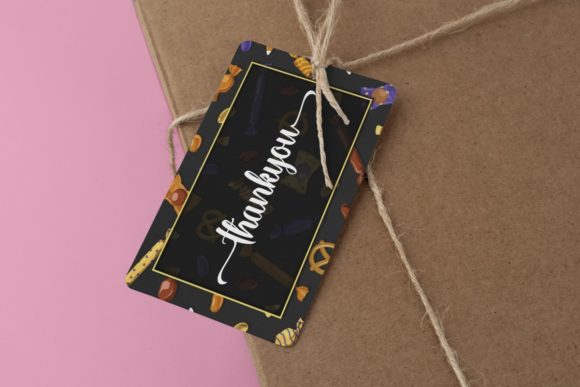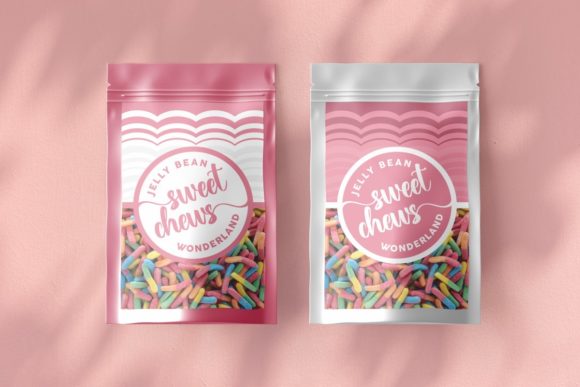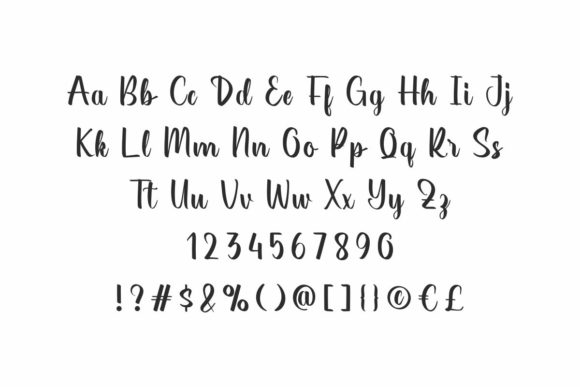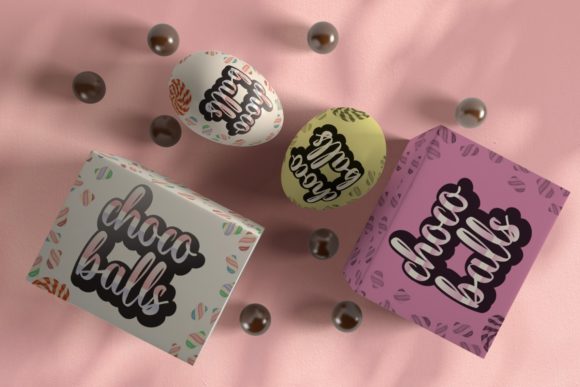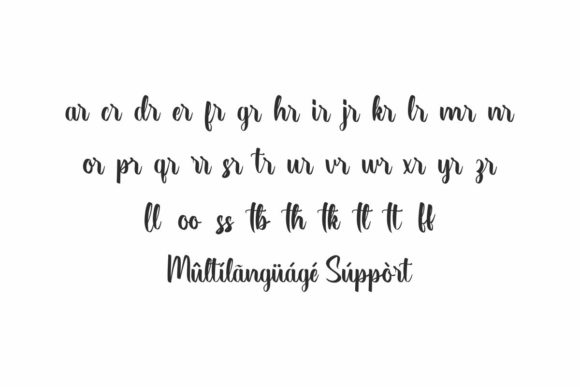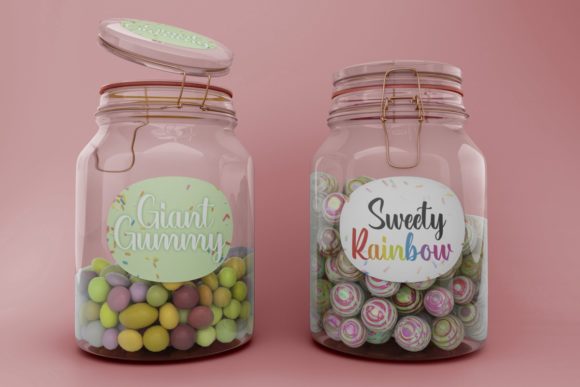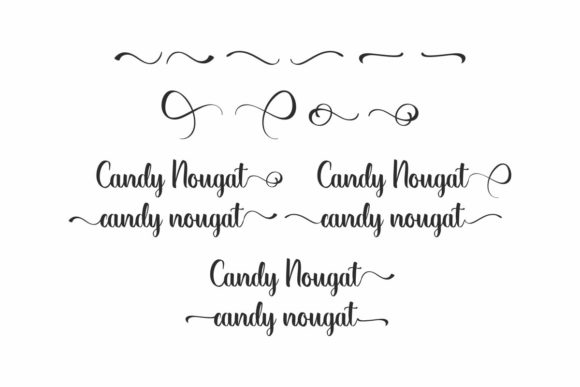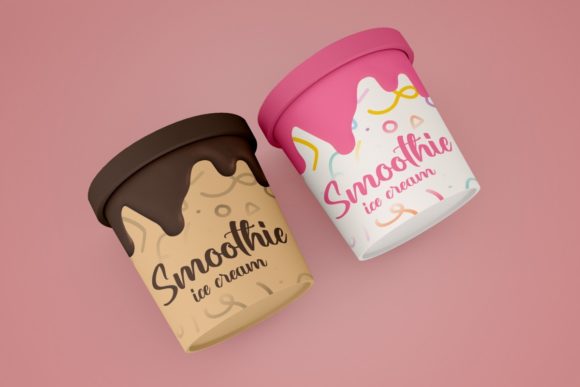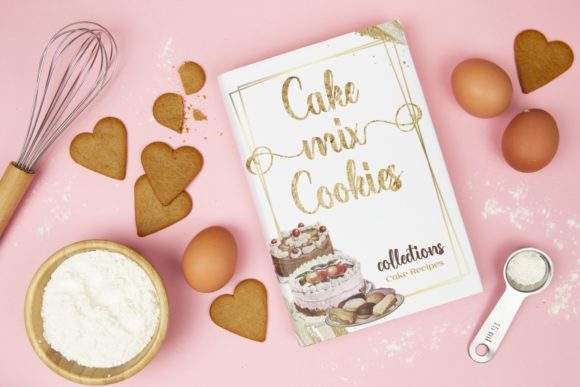
Candy Nougat Font
About Candy Nougat Font
Candy Nougat is a delightful and well-balanced script font designed to add a touch of loveliness to your projects. Tailored for a variety of applications, this font is perfect for product packaging, branding projects, magazine covers, social media posts, weddings, or any scenario where expressing words above a background is essential.
The charm of Candy Nougat lies in its script, which strikes a perfect balance between elegance and playfulness. Whether used digitally or in print, this font enhances the visual appeal of your content, giving it a unique and sweet character.
An exceptional feature of Candy Nougat is its PUA encoding, allowing easy access to a plethora of glyphs and swashes. This feature enhances the font’s adaptability, providing designers with the tools to customize and personalize their creations effortlessly. Whether you’re looking to add a subtle flourish or create a more elaborate design, Candy Nougat’s PUA encoding ensures a smooth and enjoyable design experience.
In summary, Candy Nougat isn’t just a font; it’s a design asset that brings a lovely and well-balanced quality to your work. With its charming script and PUA encoding, Candy Nougat is poised to elevate various design elements, ensuring that your expressions above the background stand out with sophistication and charm. Explore the possibilities and let Candy Nougat be the perfect choice for infusing your designs with a delightful and customizable aesthetic.